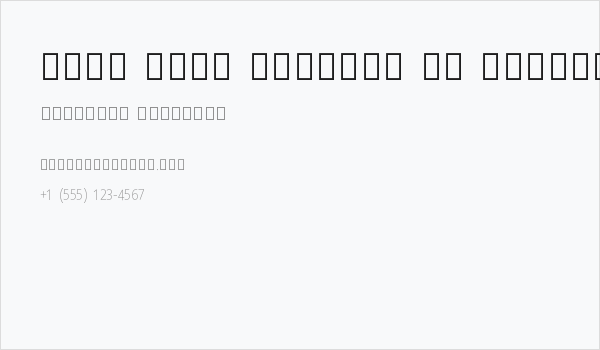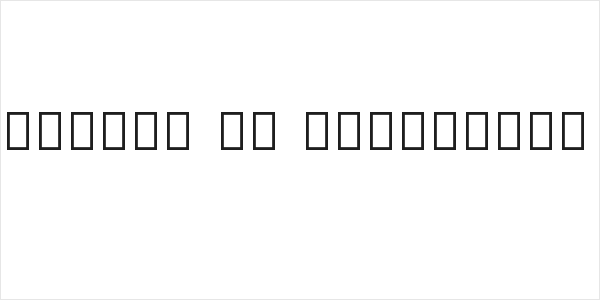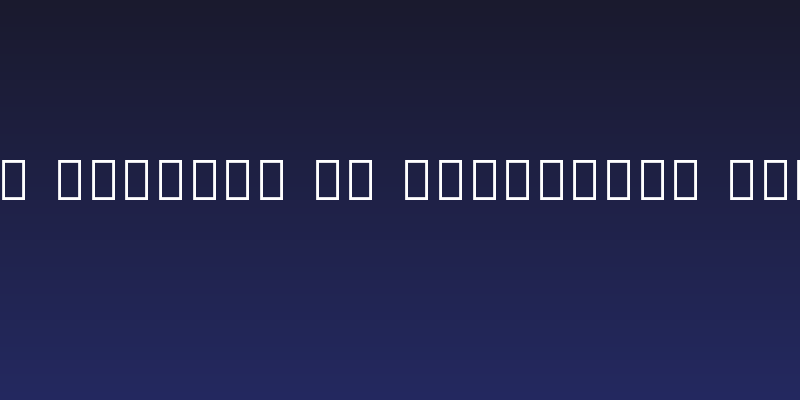
Noto Sans Sinhala UI Condensed ExtraLight Font
Noto Sans Sinhala UI Condensed ExtraLight Description
This font features a clean and modern sans-serif design with a condensed structure, making it ideal for space-saving applications. The characters are crafted with an extra light weight, providing a sleek and elegant appearance. The numerals and special characters maintain the same minimalist style, ensuring consistency across all elements. The font's simplicity and clarity make it highly readable, even at smaller sizes, while its condensed form allows for efficient use of space in various design contexts.
| Use Case | User interfaces, Mobile apps, Websites |
| Proposed Projects | Ideal for user interfaces, mobile apps, and websites where space is limited. Also suitable for modern branding and minimalist design projects. |